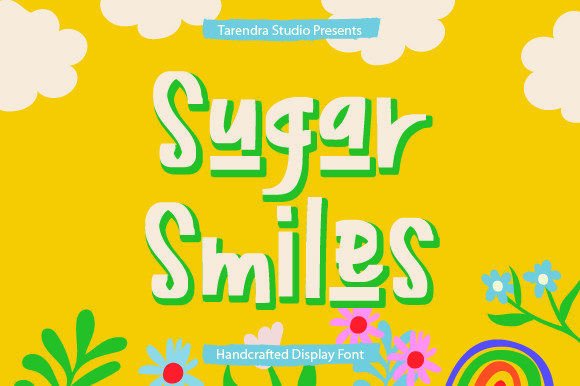
Indulge in the whimsical world of Sugar Smiles, a display font that radiates playful vibes, adding an element of joy to your creative projects. With its charming and carefree personality, this font is the perfect choice for bringing a smile to the faces of your audience.
Picture this: a lively wild west poster, with Sugar Smiles as the star, its bold and energetic characters capturing the untamed spirit of the frontier. The font's unique design, reminiscent of a playful dance, will draw the eyes of all who gaze upon it.
With Sugar Smiles as your trusted companion, transform ordinary school projects into extraordinary adventures. Its playful curves and vibrant energy will ignite a spark of creativity in young minds, making learning an unforgettable experience.
Whether crafting captivating posters, designing whimsical invitations, or creating one-of-a-kind greeting cards, Sugar Smiles is the key to unlocking a world of boundless imagination. Its versatility and adaptability make it the perfect choice for a wide range of projects, always delivering a touch of joy and delight.
Embark on a creative journey with Sugar Smiles, the font that embraces the spirit of childhood, adventure, and endless possibilities. Let its playful nature inspire you to create masterpieces that will leave a lasting impression on all who see them.